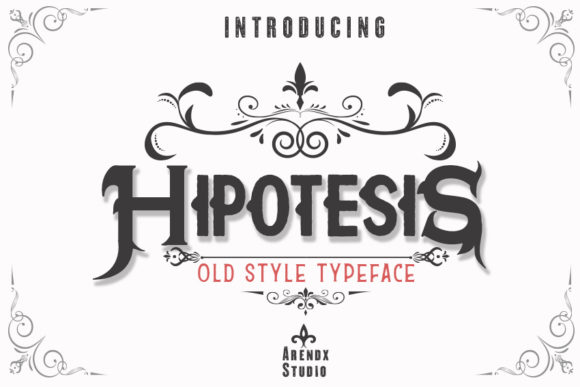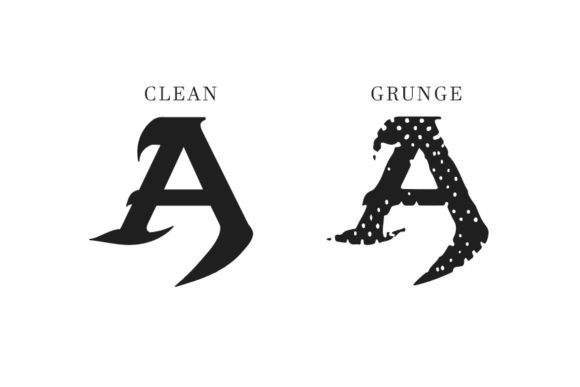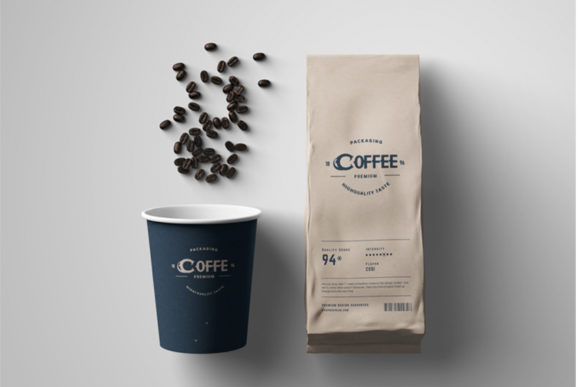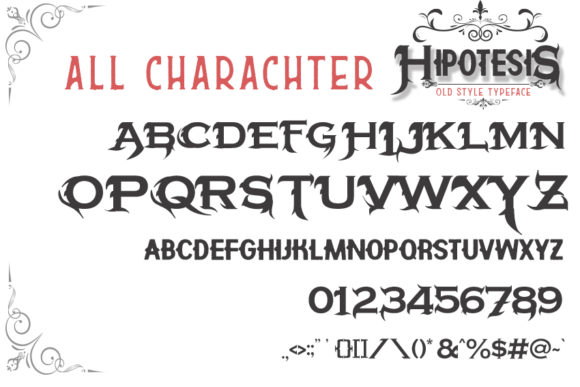
Hipotesis Font: Vintage Blackletter Font for Retro Logo Design
About the Hipotesis Font
The wait is over! The incredible Hipotesis Font is now available for your design toolkit. Inspired by Tattoo letter, Hipotesis is an iconic and fun blackletter font with a vintage feel. It will add a unique retro vibe to any design project.
Hipotesis excels in headline use, short impactful statements, and branding applications where a bold, vintage aesthetic is desired. It’s ideal for posters, logos, and packaging designs requiring a retro feel. However, its highly decorative nature makes it unsuitable for body text or UI elements; readability suffers at smaller sizes or within lengthy paragraphs.
The font’s playful yet strong personality pairs well with clean sans-serif fonts like Montserrat or Open Sans for a balanced contrast. For a more vintage-inspired look, consider pairing it with a classic serif like Garamond or Didot. Avoid pairing it with other highly decorative fonts, as this can create visual clutter.
Hipotesis projects a bold, slightly rebellious, and undeniably fun personality. Brands targeting a younger demographic, those with a vintage or rockabilly aesthetic, or projects needing a strong visual punch will find it highly effective.
Hipotesis Font Usage Examples
Hipotesis Font Example